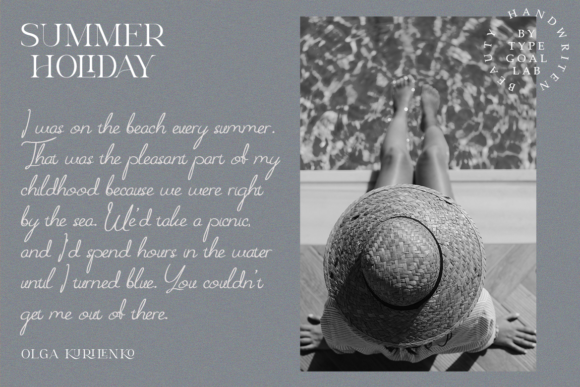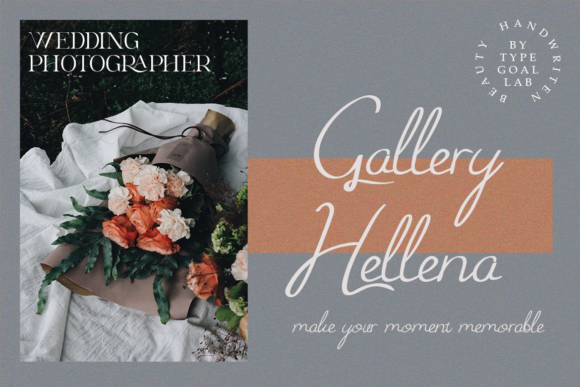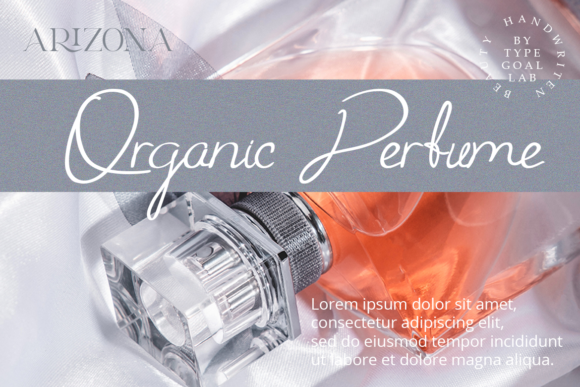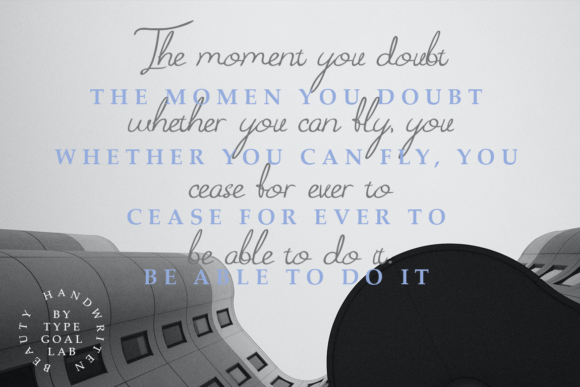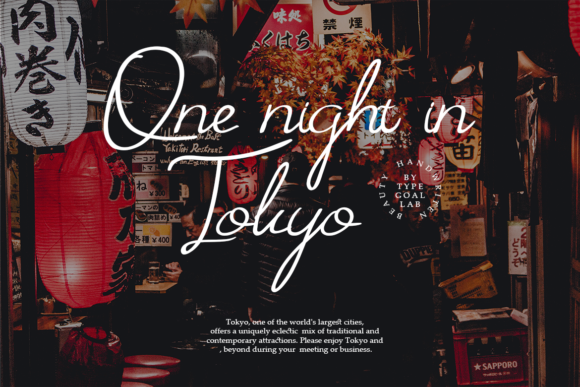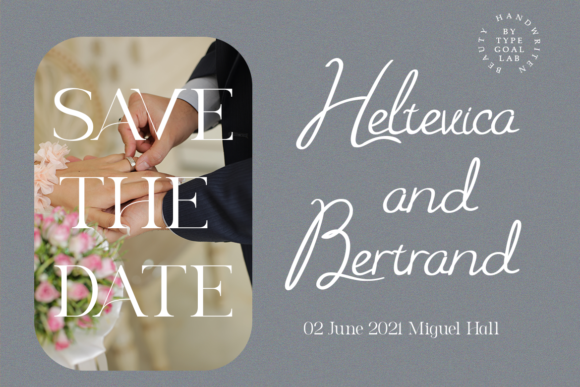
The Perfect Font for Love and Elegance
Have you ever stared at a blank page, trying to find the perfect font to express your feelings? The struggle is real, but what if I told you that there’s a font that can make your words shine with love and elegance? I still remember the moment I discovered the Huzairy Love Font – it was like a breath of fresh air for my design projects. This charming font has a way of making every design feel special, whether it’s a wedding invitation or a simple quote.
As a designer, you know how hard it can be to find a font that perfectly captures the essence of your message. That’s where the Huzairy Love Font comes in – it’s the perfect combination of elegance and charm that will elevate your designs to the next level. With its PUA encoding, you can easily access all the glyphs and swashes, giving you endless possibilities to create stunning designs.
Huzairy Love Font Key Features
- Font Size: This beautiful script font comes in a single font size, making it easy to use in various design projects. The font size is not scalable, but it’s perfect for creating eye-catching headlines and titles.
- Unique Characteristics: This font features a beautiful, flowing script style with intricate details and flourishes, making it perfect for creating romantic and elegant designs.
Huzairy Love Font Review
I recently had the chance to work with the Huzairy Love Font, and I must say it’s a unique and lovely addition to any design project. Here’s what I think:
- The font’s playful and cursive nature makes it perfect for creating a romantic or whimsical atmosphere.
- The letterforms are elegant and intricate, adding a touch of sophistication to any design.
- The font is highly customizable, with a wide range of weights and styles to choose from.
- The font can be quite ornate, which may make it difficult to read in certain situations, especially at smaller font sizes.
- The font’s complexity may lead to compatibility issues with certain software or operating systems.
- The font may not be suitable for use in formal or professional contexts where simplicity and legibility are key.
Overall, the Huzairy Love Font is a lovely choice for designers looking to add a touch of elegance and whimsy to their projects. While it may have some limitations, it’s well-suited for romantic or creative endeavors.
Use Huzairy Love Font to create visually appealing designs, especially for romantic or wedding-themed projects.
Experiment with different font sizes, colors, and combinations to achieve a unique look.
Huzairy Love Font is ideal for:
Romantic quotes and posters
Valentine’s Day and anniversary cards
For optimal readability, we recommend using the Huzairy Love Font at sizes between 12 and 24 points. However, font size ultimately depends on your design’s context, target audience, and intended use. Experiment with different sizes to find the perfect balance for your project.